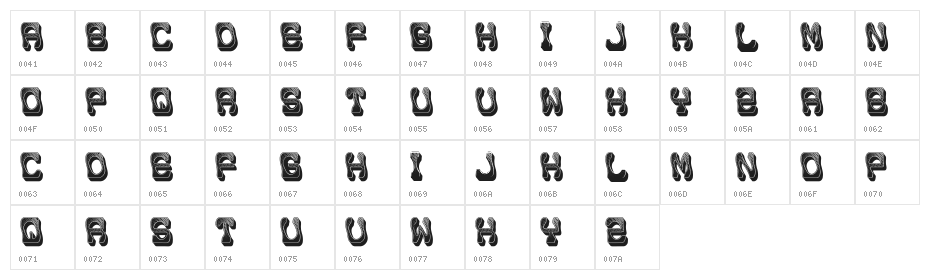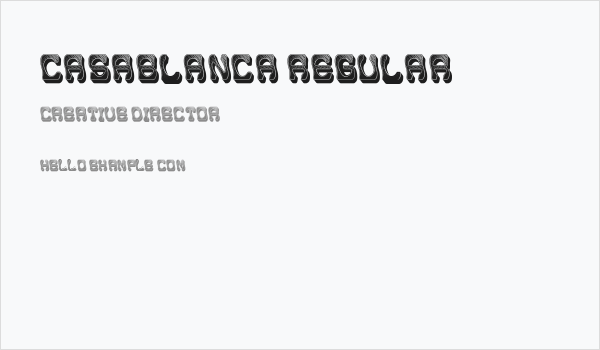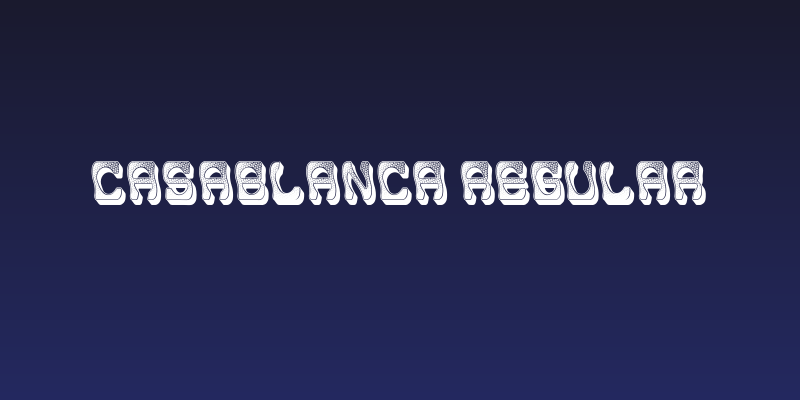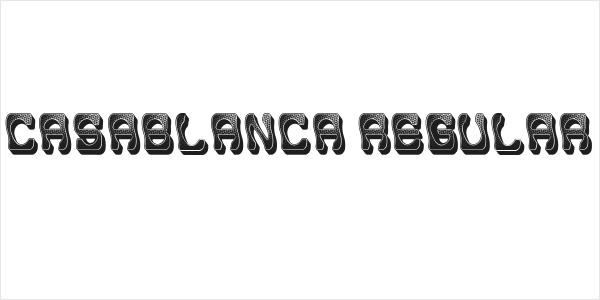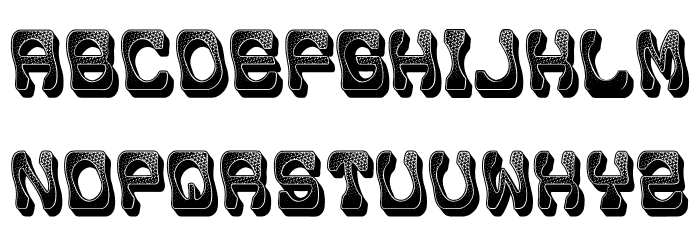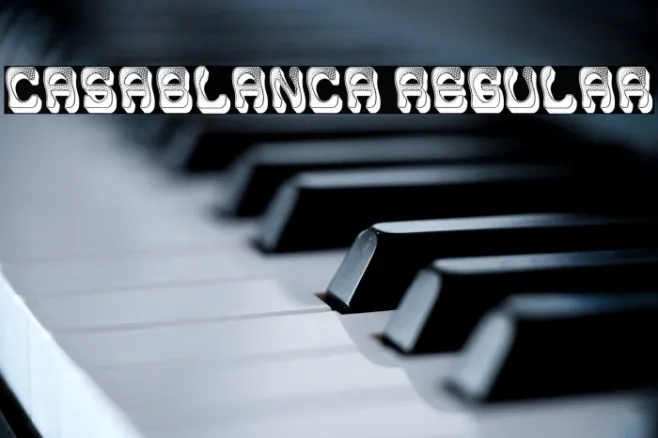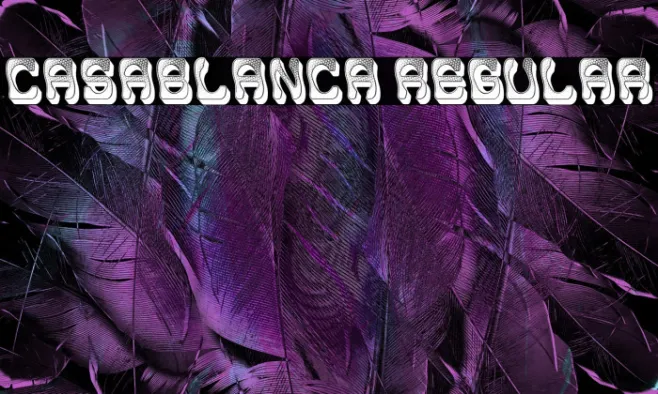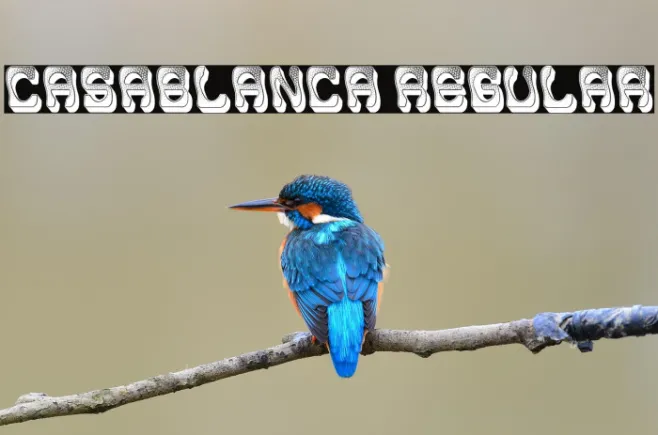
Casablanca Regular Font
Casablanca Regular Description
This font features a bold, decorative style with a three-dimensional effect. The characters are designed with a shadow that gives them a raised appearance, adding depth and visual interest. The intricate detailing within each letter includes a textured pattern, enhancing its unique and artistic look. This font is highly stylized, making it ideal for eye-catching designs. The uppercase letters are consistent in their boldness and complexity, while the overall design maintains a cohesive and striking aesthetic.
| Proposed Projects | Ideal for poster designs, branding projects, and any creative work that requires a standout, artistic font. |